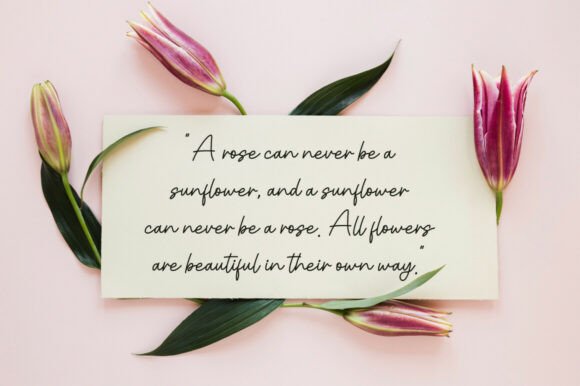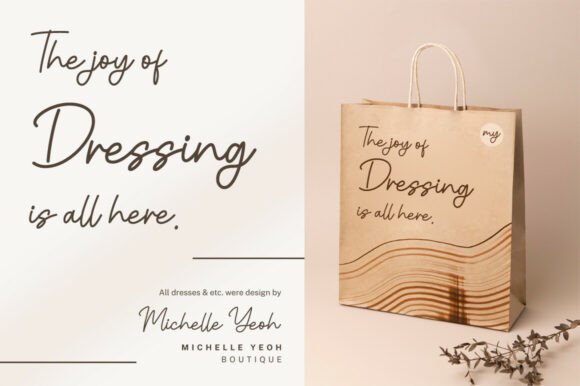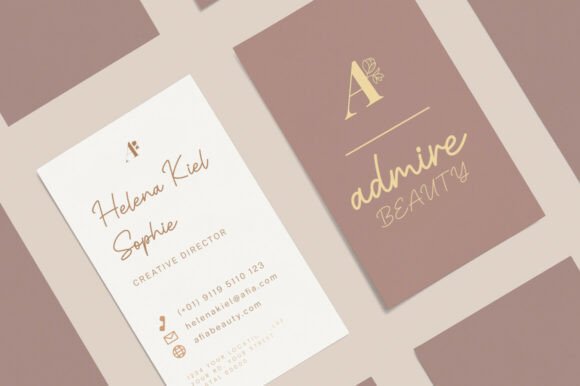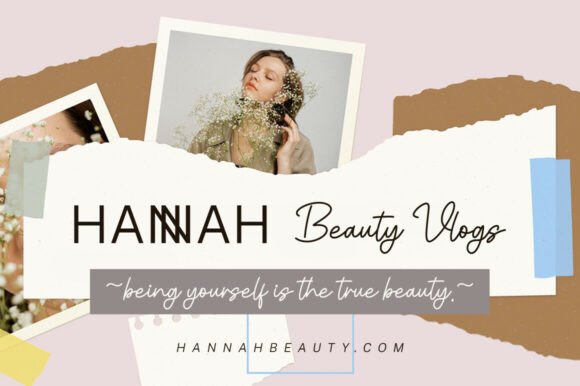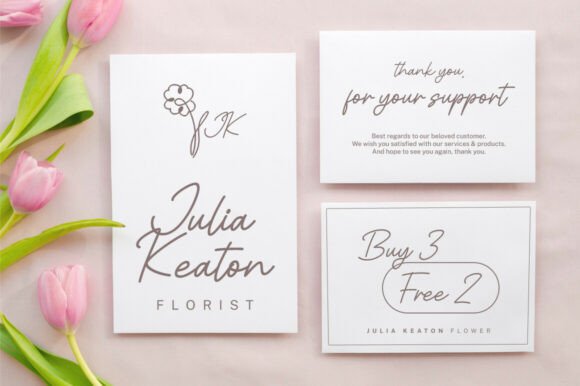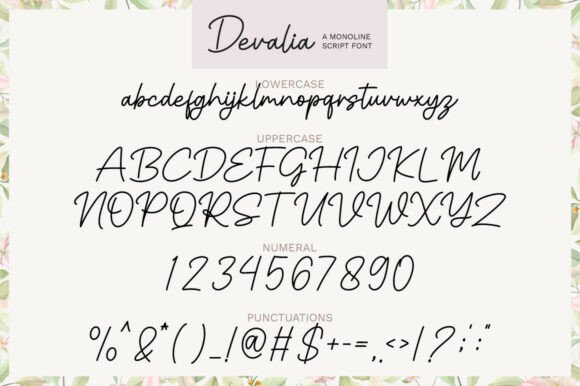
Introducing Devalia Font: A Timeless Handwritten Masterpiece
Are you on the hunt for a font that exudes elegance, sophistication, and a touch of whimsy? Look no further than Devalia Font, a lovely and timeless handwritten font that’s perfect for creating eye-catching logos, branding, and quotes. In this article, we’ll dive into the world of Devalia Font, exploring its unique features, uses, and benefits for designers and crafters.
The Charm of Devalia Font
Devalia Font is a beautiful, hand-crafted font that boasts a unique and distinctive style. Its elegant, cursive script is reminiscent of traditional handwritten fonts, yet it has a modern twist that sets it apart from more traditional fonts. The font’s flowing lines, subtle curves, and delicate flourishes make it perfect for creating visually stunning designs that capture the eye and hold the viewer’s attention.
What Makes Devalia Font So Special?
So, what makes Devalia Font so special? Here are just a few of its standout features:
- Timeless appeal: Devalia Font has a timeless quality that makes it suitable for a wide range of design applications, from vintage-inspired branding to modern digital designs.
- Elegant and sophisticated: The font’s elegant, cursive script gives it a sophisticated and refined feel that’s perfect for high-end branding, luxury goods, and upscale designs.
- Versatile: Devalia Font is incredibly versatile, making it suitable for use in a wide range of design applications, from logos and branding to quotes, posters, and more.
- Easy to read: Despite its elegant, cursive script, Devalia Font is surprisingly easy to read, making it perfect for use in body text, headings, and titles.
Uses for Devalia Font
Devalia Font is an incredibly versatile font that can be used in a wide range of design applications. Here are just a few ideas to get you started:
- Logo design: Devalia Font is perfect for creating eye-catching logos that exude elegance and sophistication.
- Branding: The font’s timeless appeal and elegant script make it ideal for use in branding, packaging, and marketing materials.
- Quotes and posters: Devalia Font is a great choice for creating visually stunning quotes and posters that capture the eye and inspire the viewer.
- Digital designs: The font’s modern twist and elegant script make it perfect for use in digital designs, from social media graphics to website headers.
Devalia Font offers a range of benefits for designers and crafters, including:
- Increased creativity: With Devalia Font, designers and crafters can create visually stunning designs that capture the eye and inspire the viewer.
- Time-saving: The font’s ease of use and versatility save designers and crafters time and effort, allowing them to focus on the creative process.
- Professional results: Devalia Font’s elegant, sophisticated script ensures that designs look professional and polished, even for those without extensive design experience.
In conclusion, Devalia Font is a timeless handwritten font that’s perfect for creating eye-catching logos, branding, and quotes. Its elegant, cursive script, flowing lines, and subtle curves make it a standout font that’s sure to capture the eye and inspire the viewer. With its versatility, ease of use, and professional results, Devalia Font is a must-have for designers and crafters looking to elevate their designs and take their creativity to the next level.